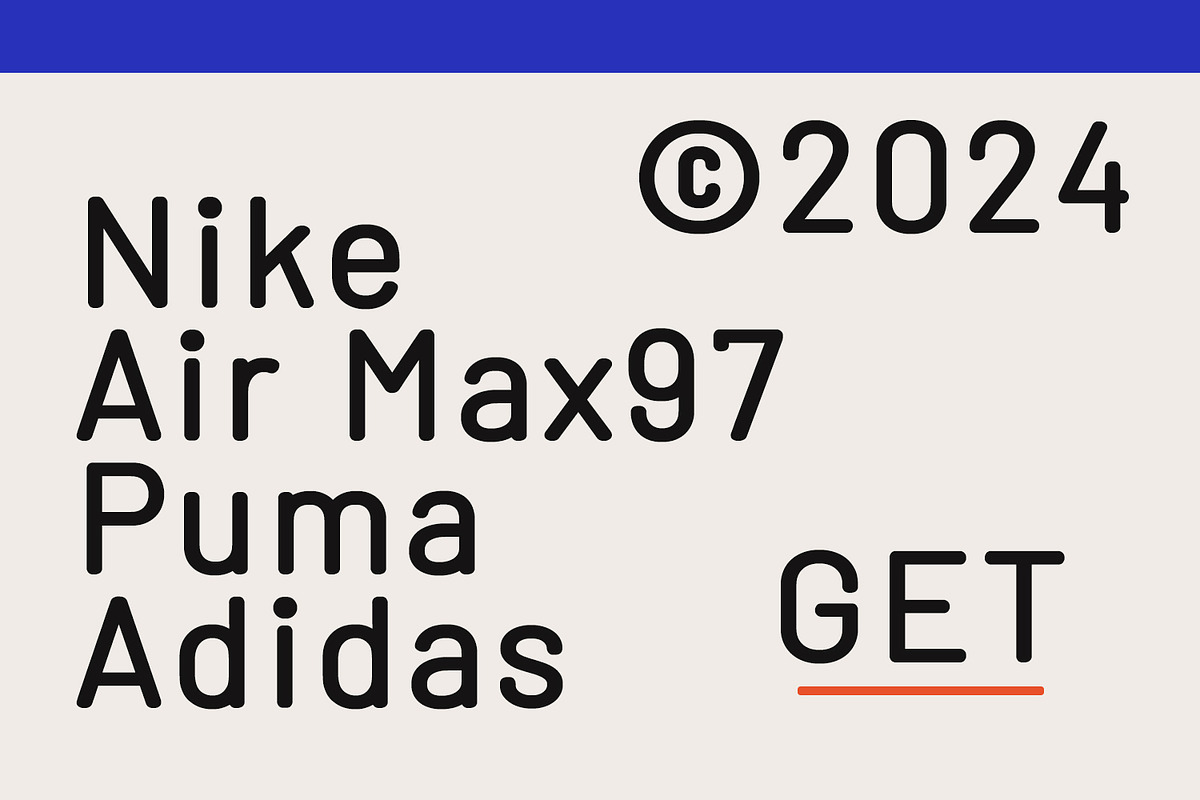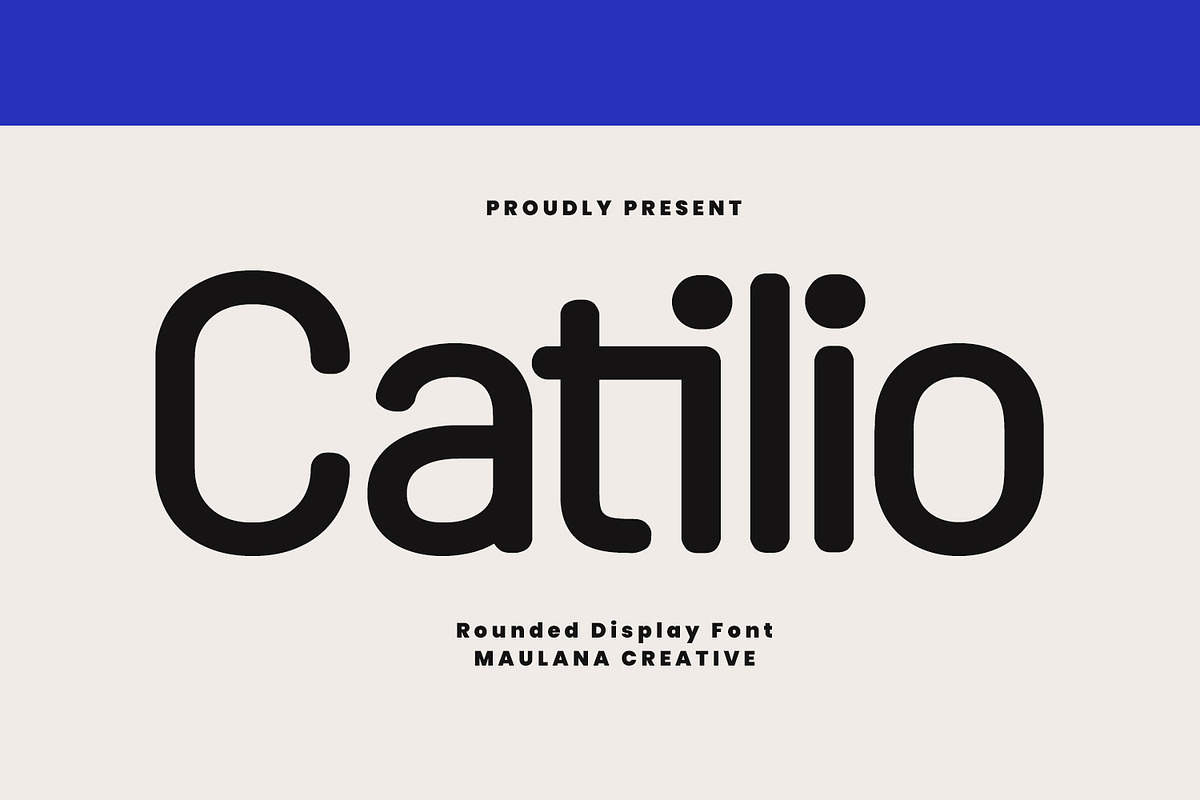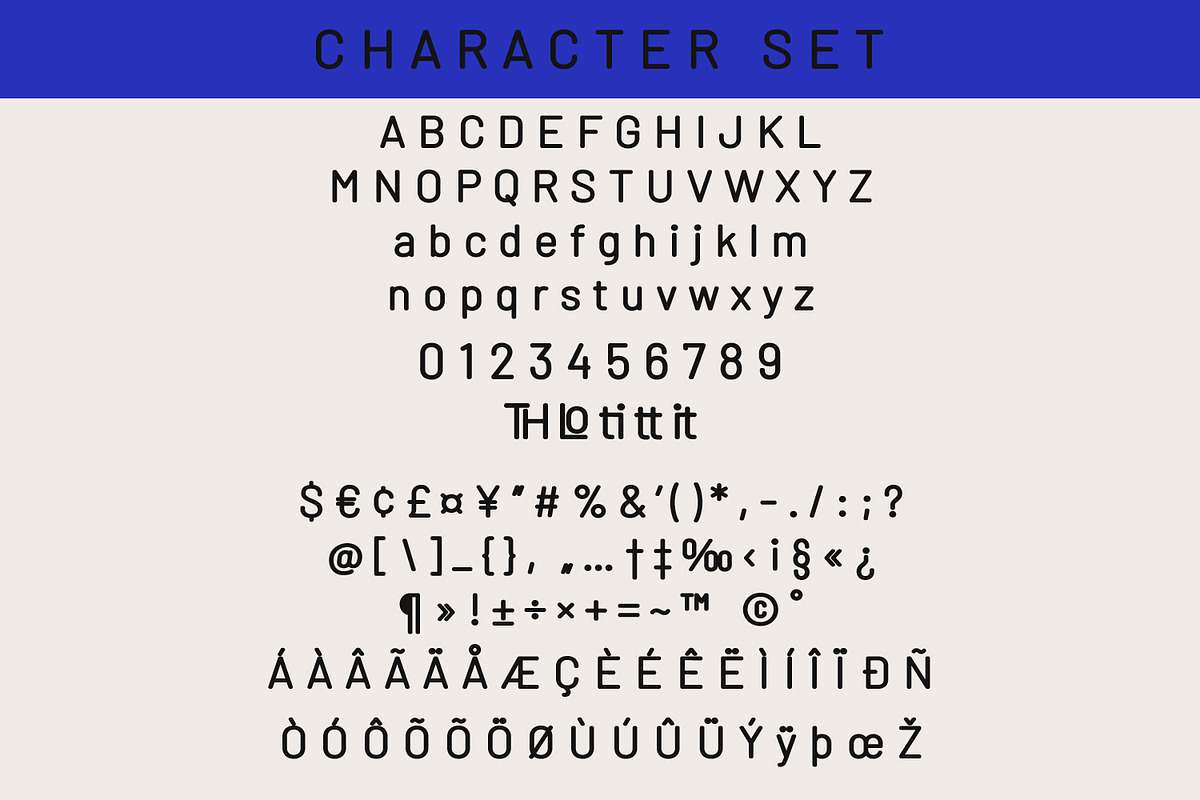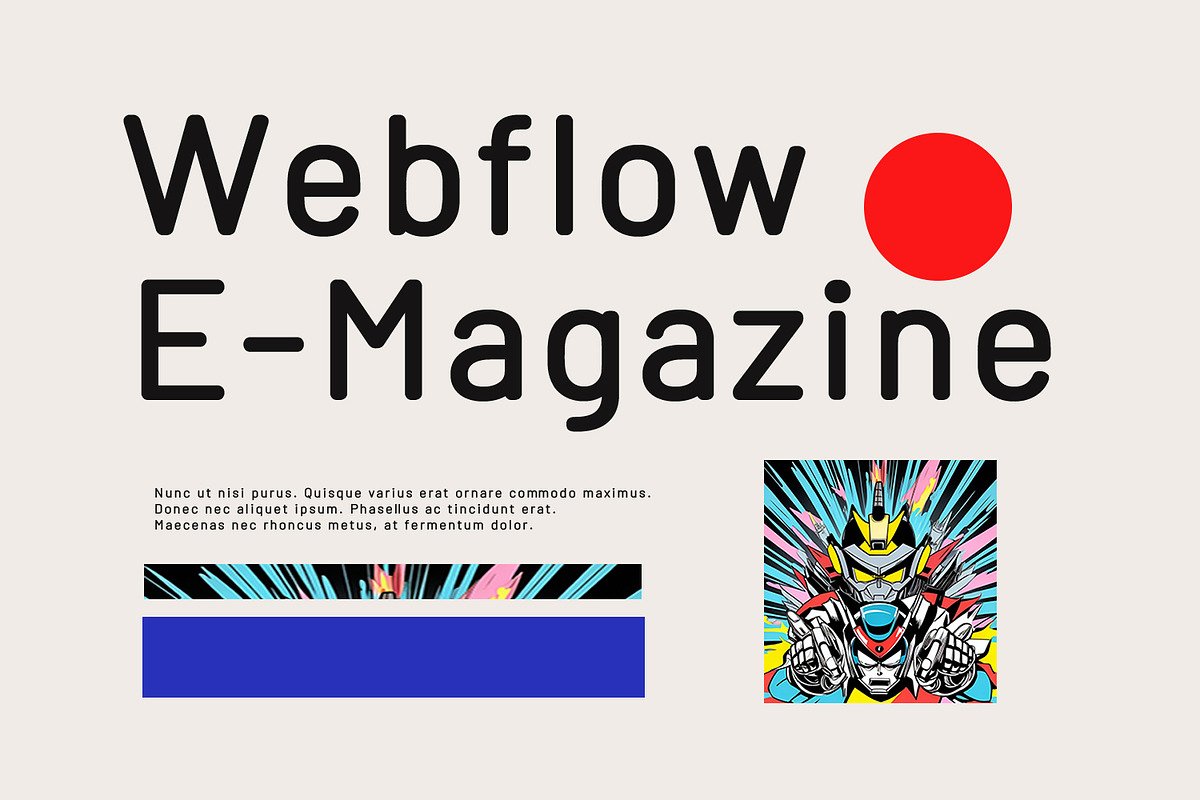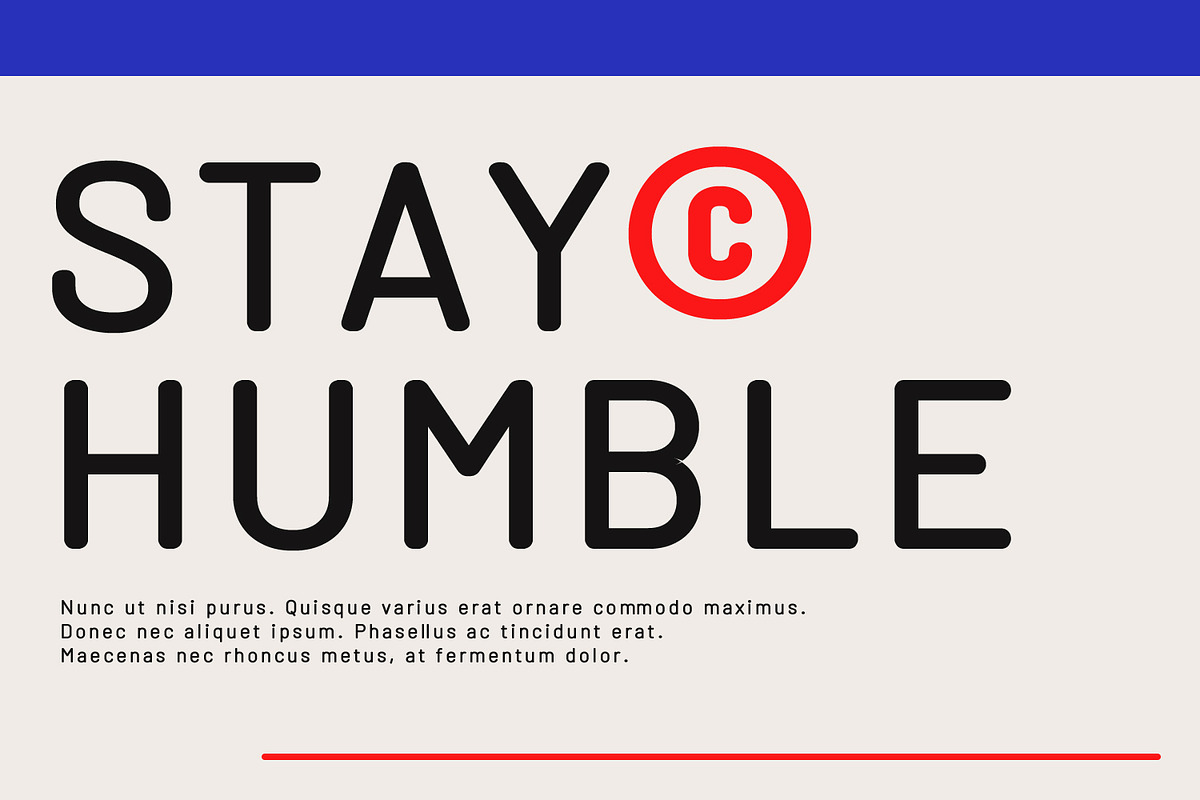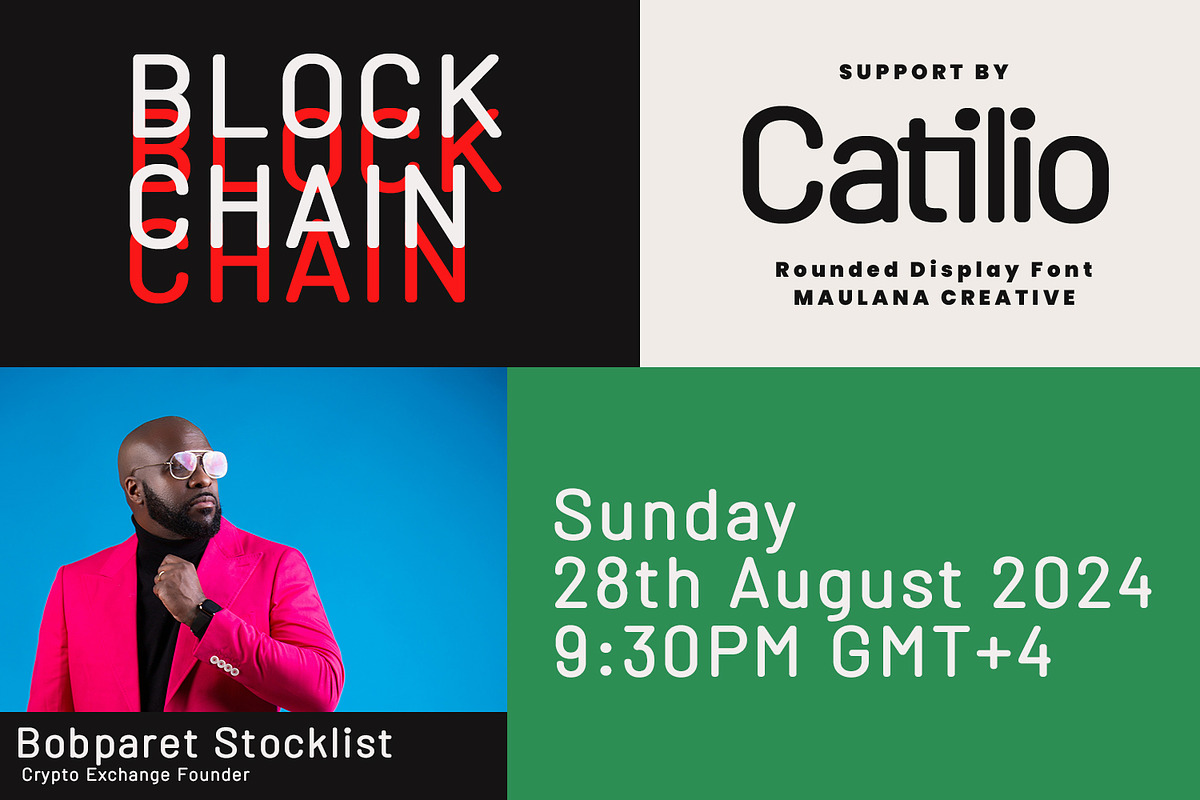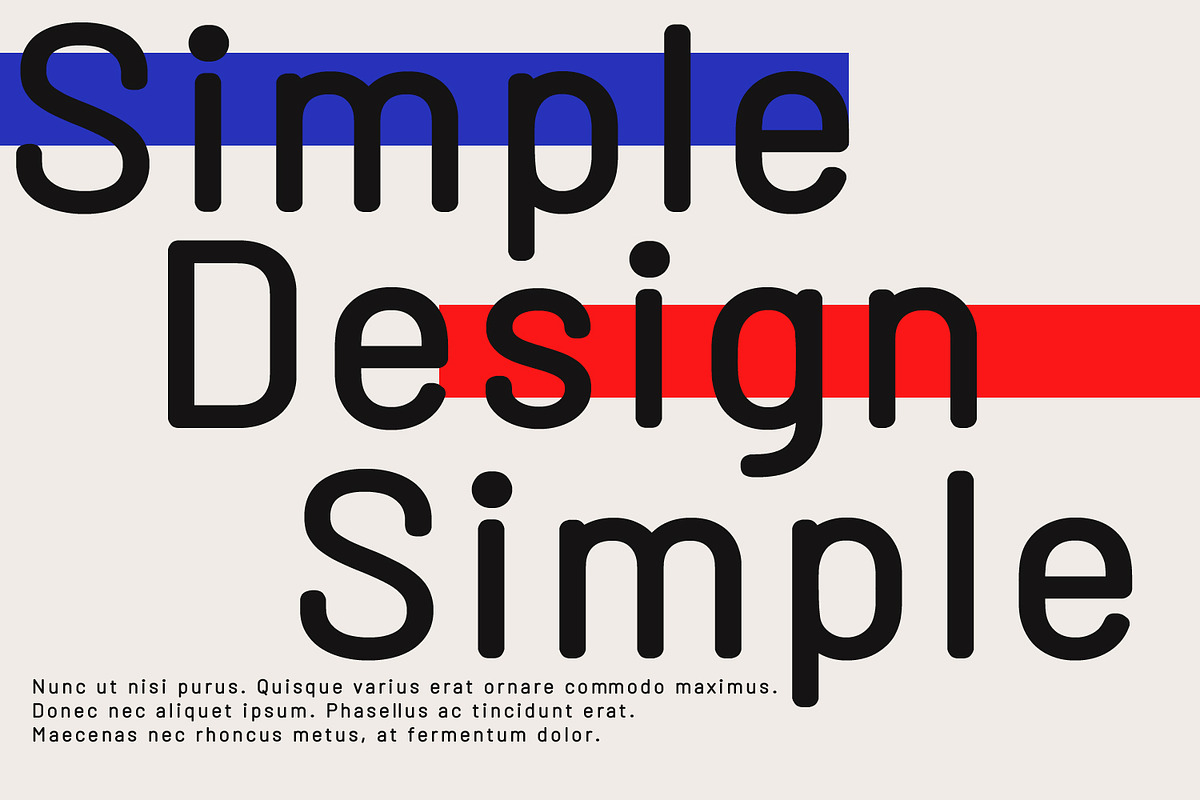
Catilio Rounded Sans Serif Display F
Catilio is a rounded sans serif display font. Awesome character with a ligatures. To give you an extra creative work. Catilio font support multilingual language. This font is good for logo design, Social media, Movie Titles, Books Titles, a short text even a long text letter and good for your secondary text font with sans or serif. Make a stunning work with Catilio font.